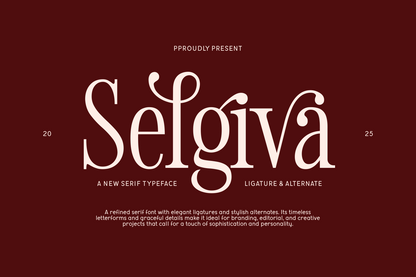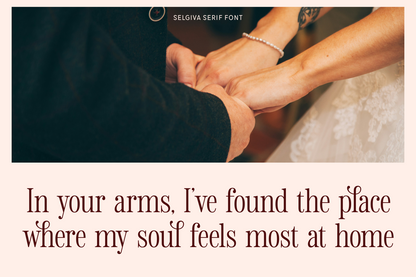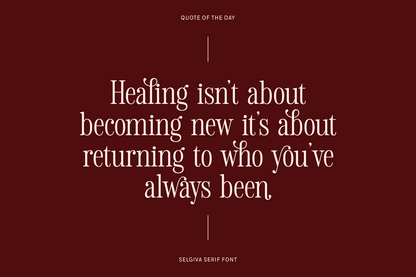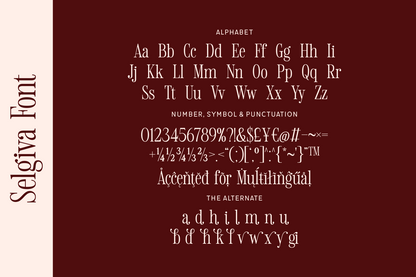
Selgiva is a refined serif typeface infused with personality, elegance, and charm. Its timeless serif structure is elevated by expressive swashes and soft curves, creating a perfect blend of modern style and classic elegance.